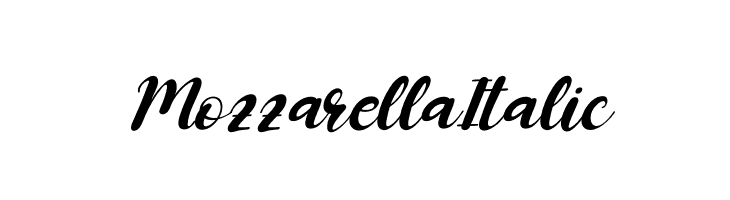
A playful, handwritten font with flowing, cursive-like strokes and a lively aesthetic.
A bold, gothic blackletter font with intricate detailing.
A modern, high-contrast stencil-like font with angular cuts.
A bold, dynamic font with a hand-drawn, energetic style.
A decorative set of parrot illustrations replacing traditional font characters.
A playful, rounded font with a hand-drawn appearance, perfect for casual and informal projects.
A bold, textured font with a distressed, vintage style.
A decorative font with a mosaic pattern, offering a bold and artistic style.
A bold, modern font with geometric shapes and a futuristic style.